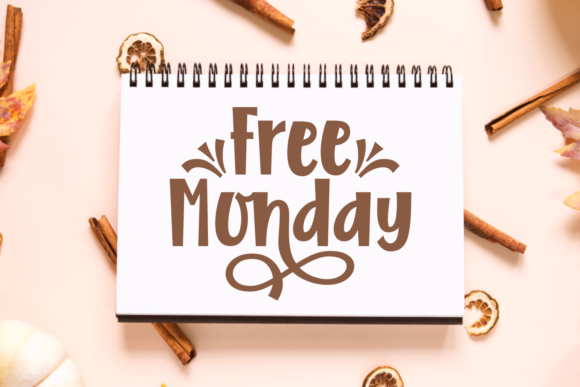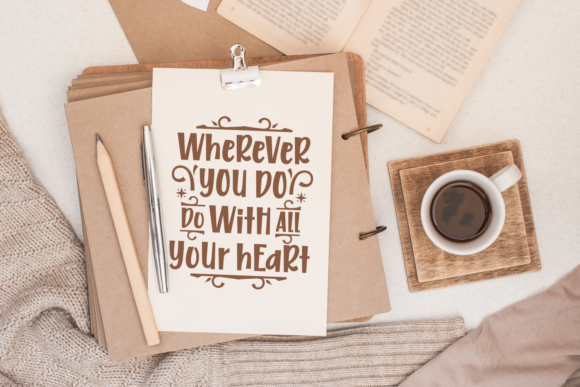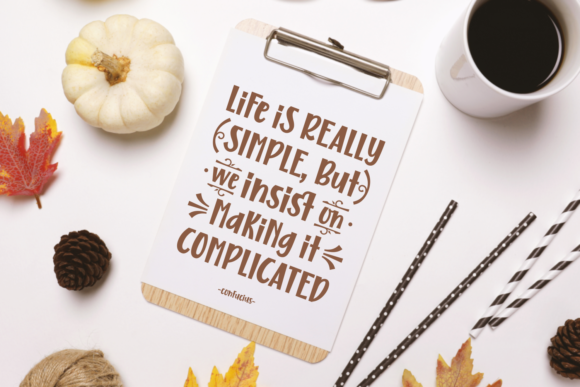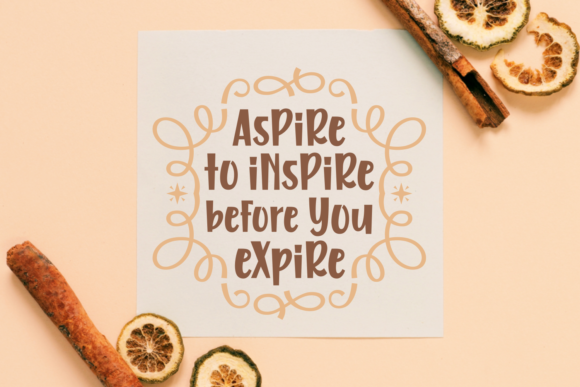
Free Monday Font
About Free Monday Font
Easy like Monday morning, Free Monday is a playful handwritten font with a unique touch. This beautiful font will add a personal feel to any design project.